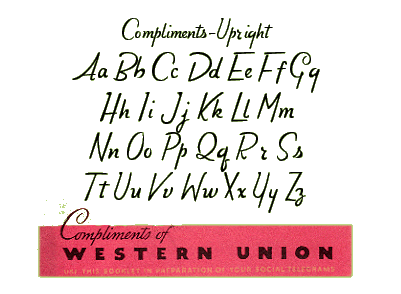
I often find the slant on script fonts a little too severe for easy reading, so I frequently straighten them up a little. This is the font used for page headers throughout this site.